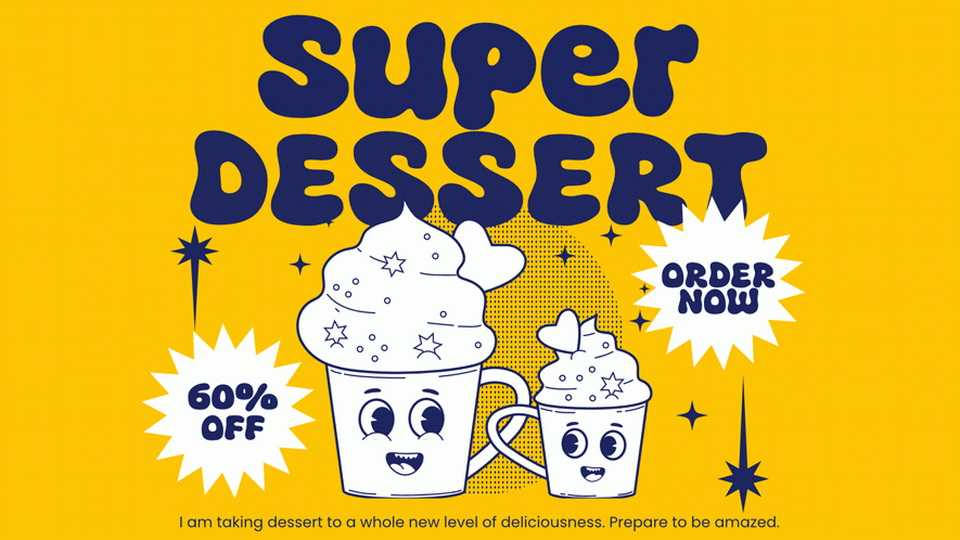
Download Super Dessert font, a display typeface that’s a blast from the past with a playful twist. Super Dessert font combines the groovy aesthetics of the ’70s with the whimsy of handcrafted cartoon lettering.